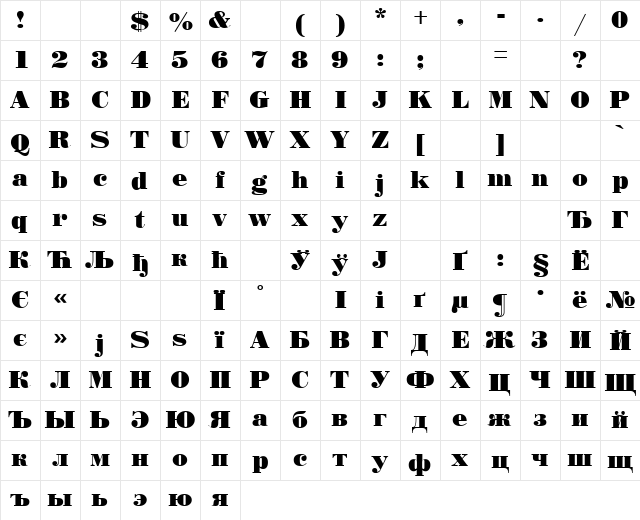
Standart Poster Normal
Standart Poster is a composed and adaptable typeface that performs quietly and consistently across a wide range of design contexts.